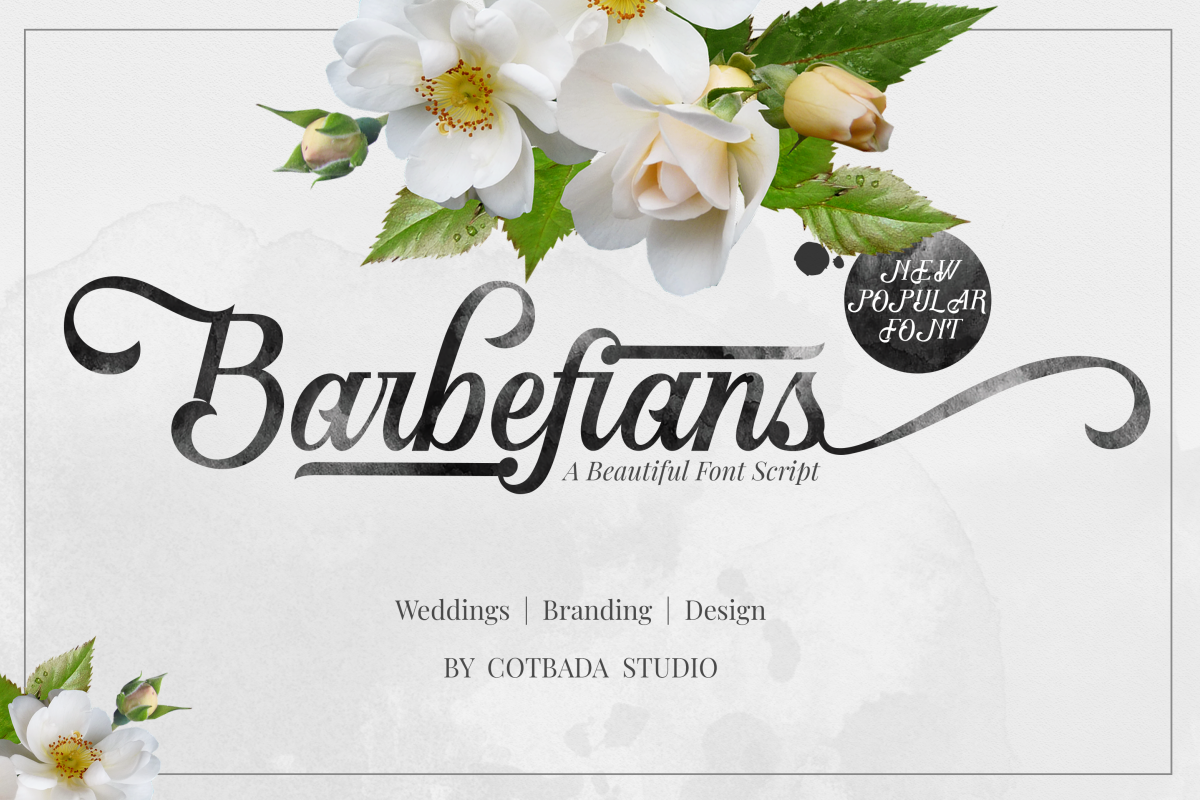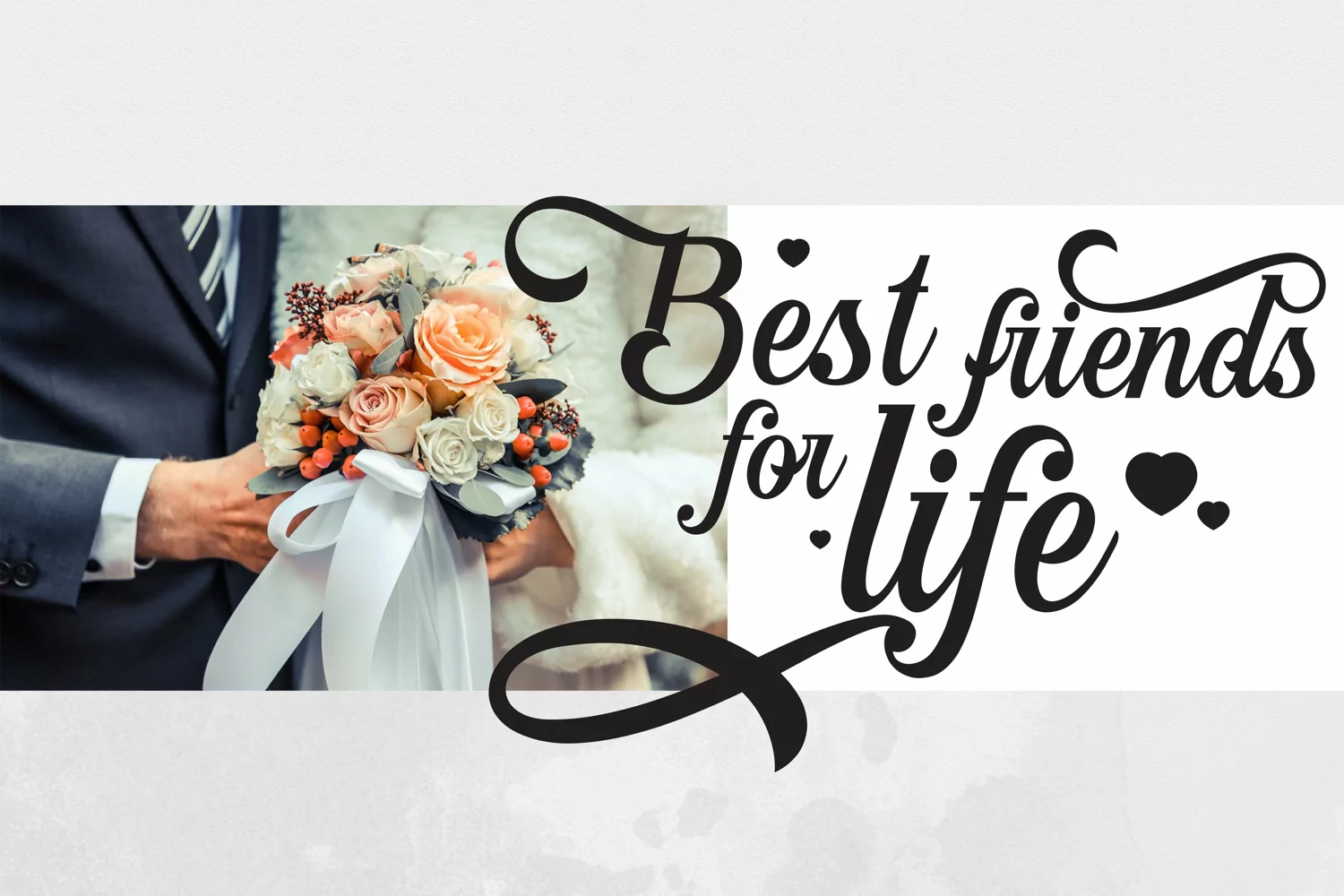
Barbefians Font Script
Barbefians Font Script, a handmade font awesome, new fresh & modern
script with a calligraphy style. Can used for anything from promotional
material and handwritten quotes, to product packaging, labels,logo
newsletters, posters, merchandise , weddings and branding projects
Barbefians Font Script - includes many alternative characters.Is coded with PUA Unicode,